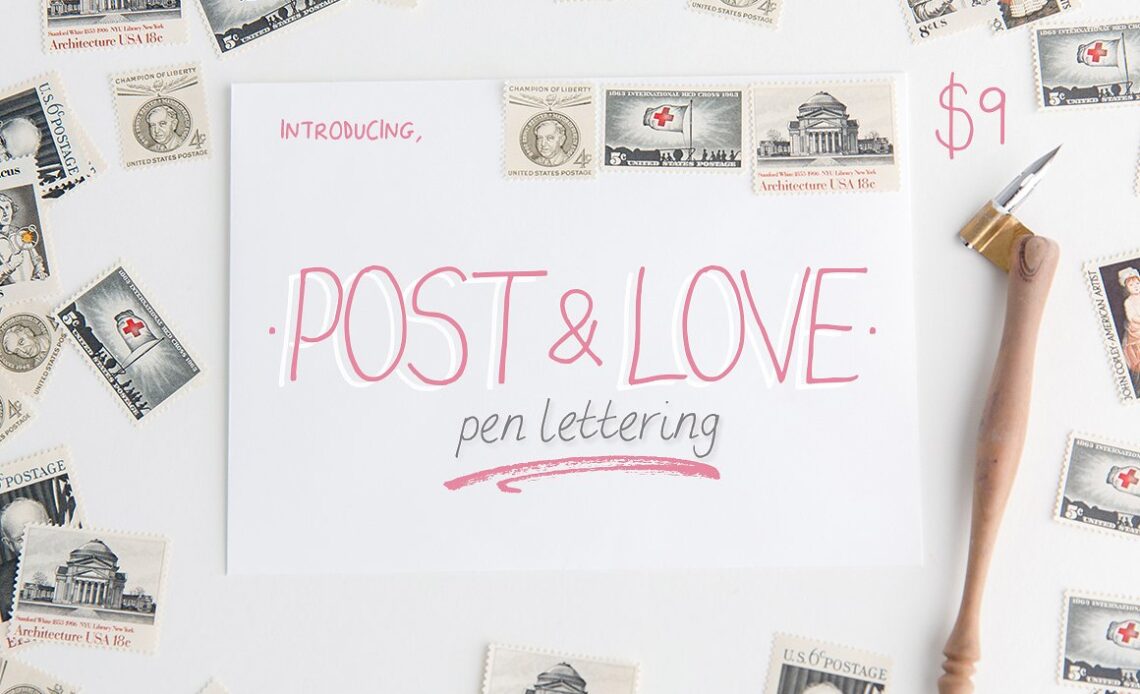
Step into the realm of creative expression with Post & Love Font, a stunning display font family that captures the authenticity of handwritten charm. This font is not merely a collection of letters; it's an artistic journey that transports you to a world of heartfelt emotions and captivating designs.
Post & Love was meticulously crafted by Salt and Pepper Fonts, a renowned foundry known for their dedication to quality and innovation. Each character in this font family exudes a genuine, hand-drawn aesthetic, reminiscent of the warmth of a handwritten note or the intimacy of a personal journal.
Whether you're a seasoned designer seeking to elevate your projects or a creative enthusiast desiring a touch of authenticity, Post & Love is your perfect companion. Its versatility shines in a myriad of applications, from eye-catching logos and branding to heartfelt invitations and personal stationery.
Unleash your creativity with Post & Love and watch your designs blossom into captivating expressions of your unique style. Let the organic flow of the font's lines guide you as you craft messages that resonate with your audience, leaving a lasting impression that captivates and inspires.
Embrace the power of handwritten charm and let Post & Love Font become your muse. It's not just a font; it's an experience that ignites passion, fuels imagination, and opens up a world of endless possibilities. Discover the beauty of genuine expression and let your designs speak volumes with Post & Love.